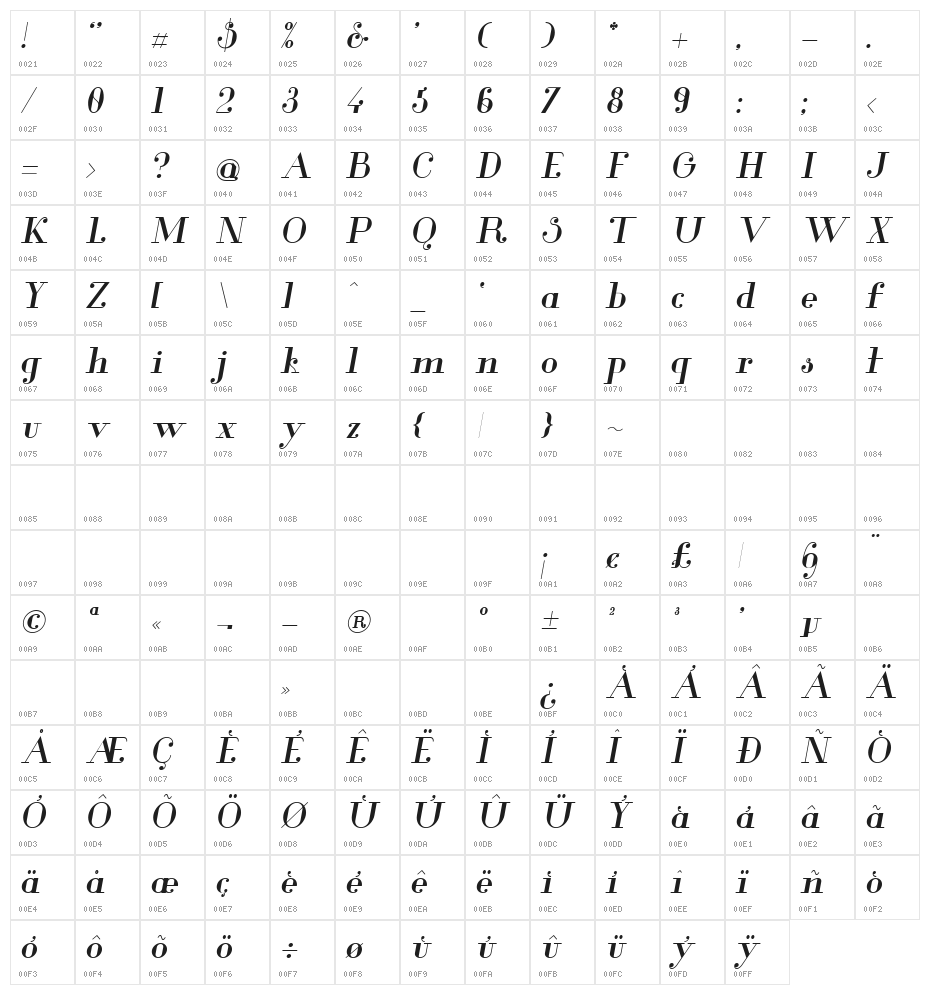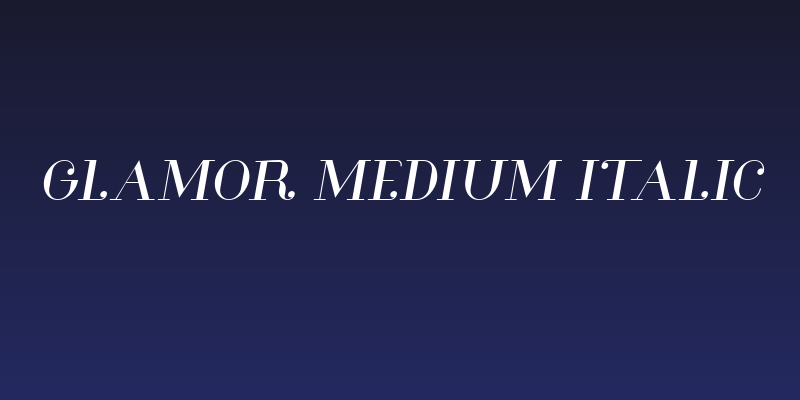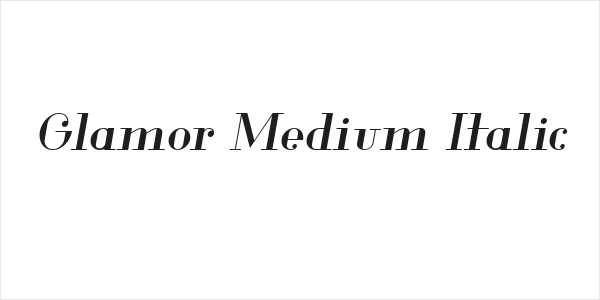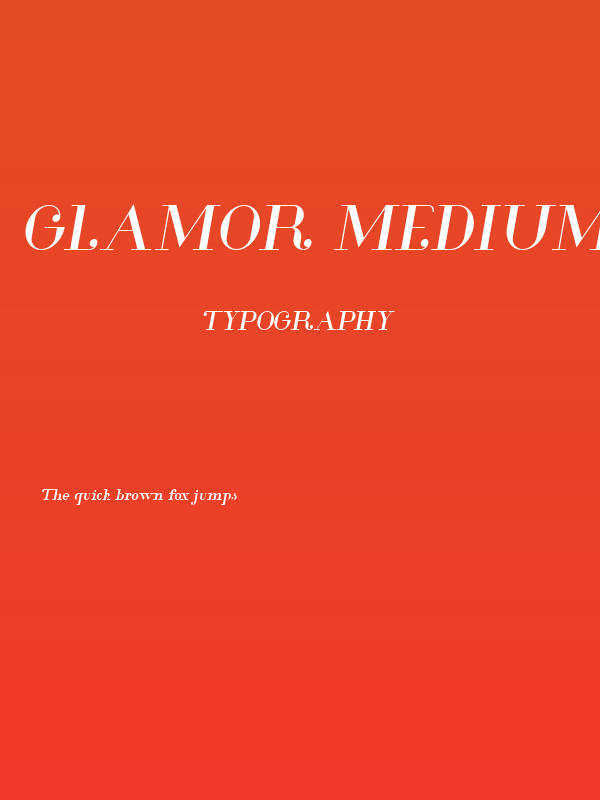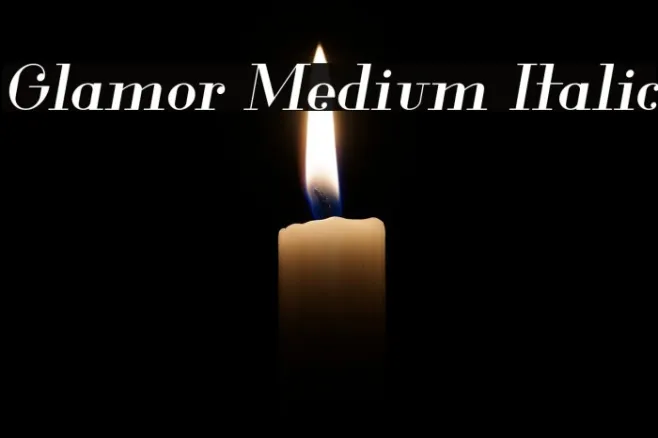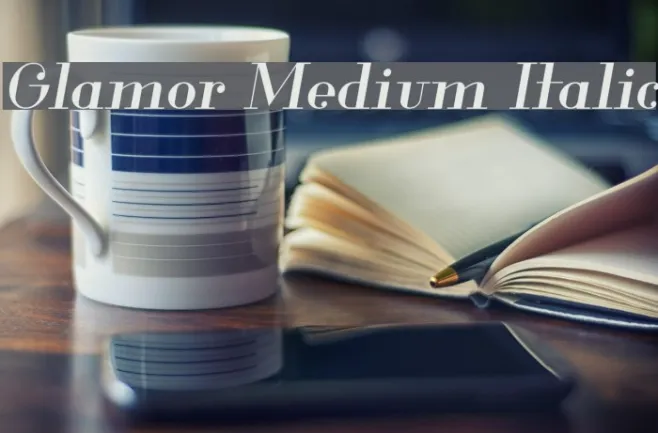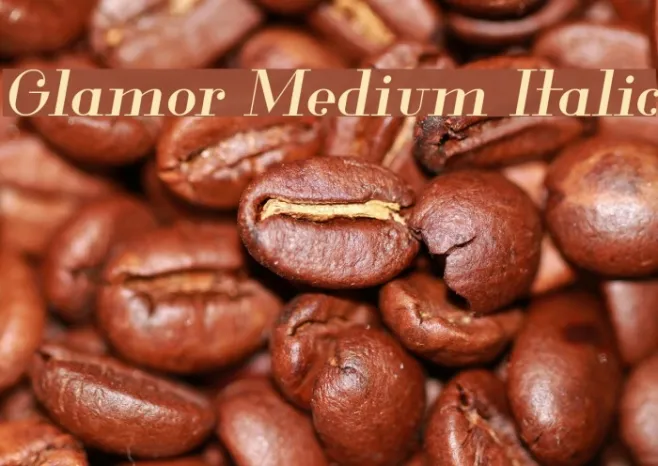
Glamor Medium Italic Font
Glamor Medium Italic Description
This elegant typeface features a sophisticated italic style with a medium weight, offering a refined and stylish appearance. The characters exhibit a high contrast between thick and thin strokes, enhancing their visual appeal. The serifs are delicately crafted, adding a touch of classic elegance. The overall design is modern yet timeless, making it suitable for a variety of applications. The character spacing is normal, ensuring readability while maintaining its decorative flair. This font is perfect for projects that require a touch of sophistication and elegance.
| Use Case | Headlines, Logos, Editorial design |
| Proposed Projects | Ideal for luxury branding, fashion magazines, wedding invitations, and elegant editorial design. |